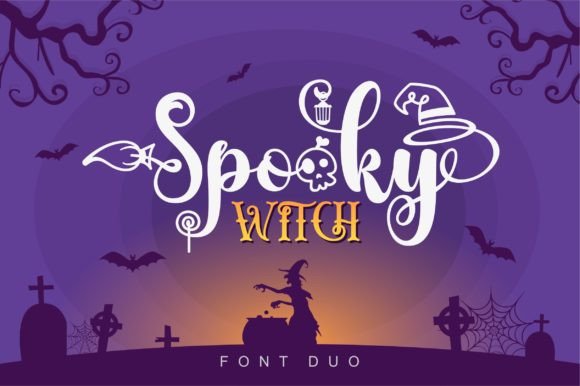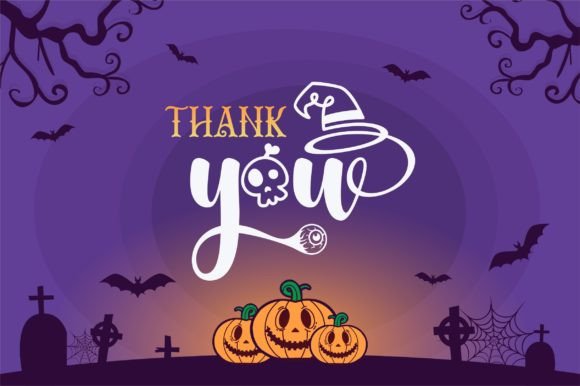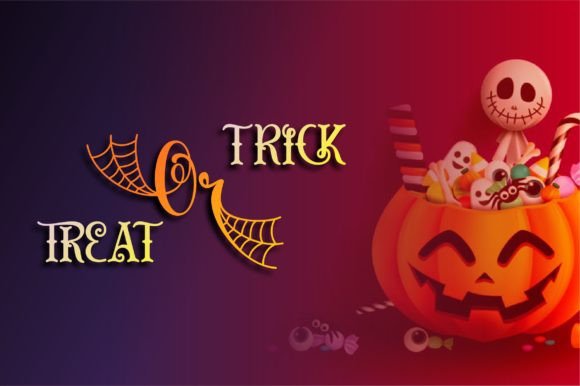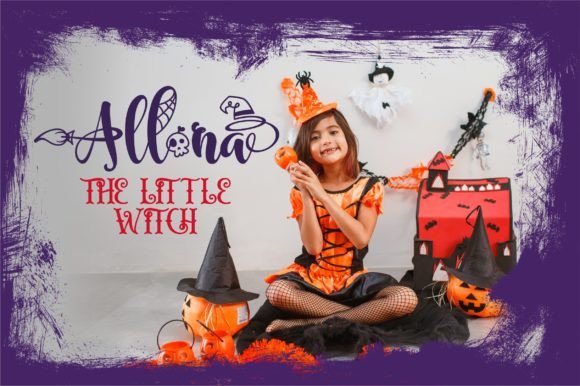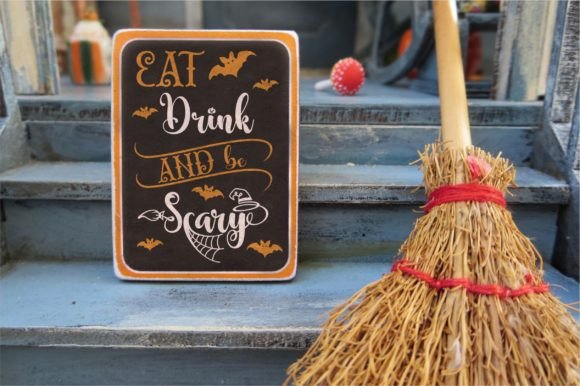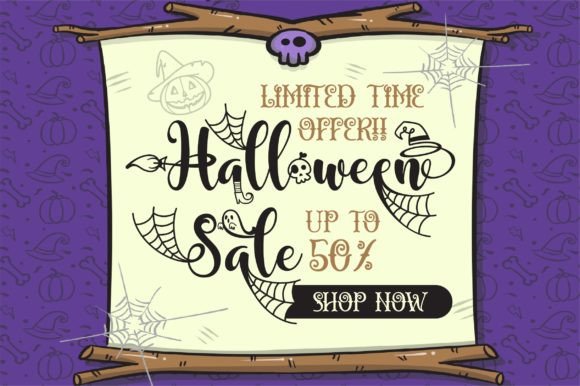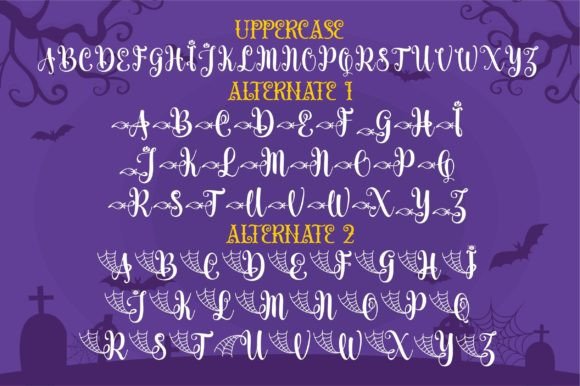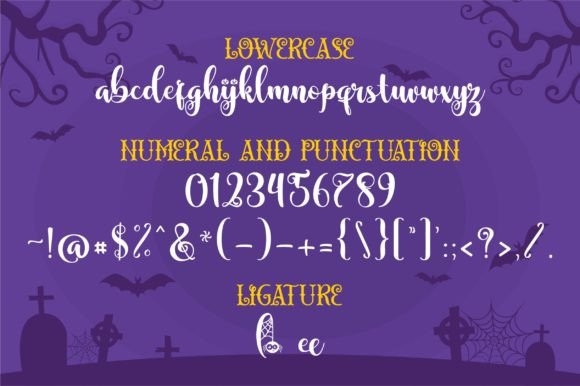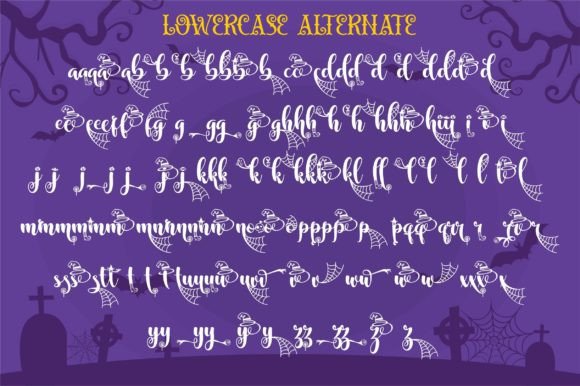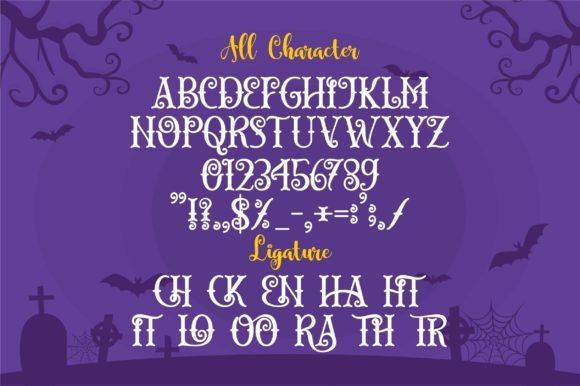
Spooky Witch Font
About Spooky Witch Font
Introducing Spooky Witch, a fun duo font featuring both a handwritten and serif style, adorned with a scary yet cute decorative Halloween theme. Expertly designed to become a beloved favorite, this font has the potential to elevate each of your creative ideas to the highest level. It brings a unique blend of spooky and cute elements that make it perfect for Halloween-themed projects or anything that requires a playful and decorative touch.
The duo font includes both a handwritten style for a whimsical and personal feel, and a serif style for a touch of elegance and structure. This versatility allows you to use Spooky Witch across various creative projects.
Consider using Spooky Witch for Halloween-themed invitations, party decorations, posters, social media graphics, or any project where you want to infuse a bit of spooky cuteness. The PUA encoding ensures easy access to all glyphs and swashes, making it convenient for you to add unique decorative elements to your designs.
In summary, Spooky Witch is not just a font; it’s a creative tool designed to enhance your Halloween-themed projects and beyond. Its duo font nature, combined with spooky and cute decorative elements, provides a range of creative possibilities. Let Spooky Witch be the font that brings a delightful and spooky charm to your designs.